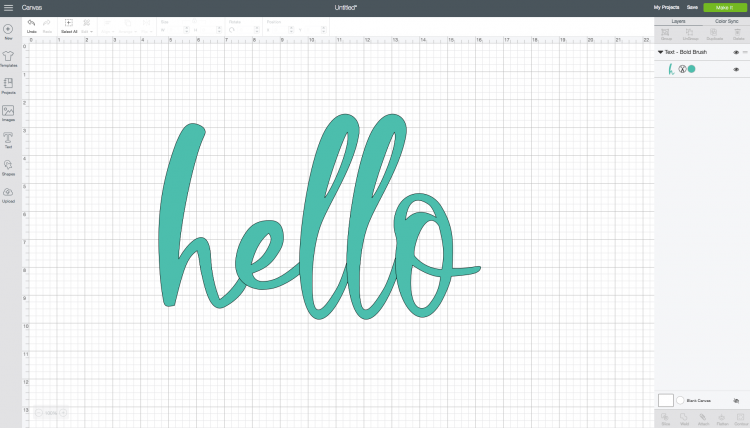
They're absolutely free and super easy to use, without. They are great for any design project, no matter. ✓ click to find the best 173 free fonts in the alphabet style. Actually, the least thing you think of when you want to communicate with your loved ones is a paper letter. The style of this font are casual, lovely, contemporary, modern, elegant. Craft a personalized note with one of these amazing handwritten fonts below. This cool fonts generator remains unique due to the fact that it has been written using unicode basically has a large set of symbols which resemble the latin alphabet. In the age of social media and smartphones, probably, there are people, who have never heard about handwritten letters.
This means that balance and symmetry may not at all have anything to do with its overall effect.
I noticed people were trying to find a generator like fancy letters, but were ending up on if you're wondering how one produces cool text fonts like you see above, it's fairly simple (but maybe not what you'd expect). 3.10 and 5.75 this set includes 26 upper case letters for a total of 54 designs all sizes. Handwriting fonts bring a new artistry to fonts, as they are actually based on people's individual handwriting. Browse and download handwriting fonts and generate images from custom text with handwriting fonts. 60 free calligraphy fonts and lettering fonts download. Free handwriting worksheets (alphabet handwriting worksheets, handwriting paper and cursive handwriting worksheets) for preschool and kindergarten. A fancy cool ✅ font generator that helps create stylish text font styles with beautiful symbols and fancy characters for social it converts a normal text to different free cool fonts styles, such as tattoo fonts, calligraphy fonts, web script fonts, cursive fonts. Here are 50 free handwriting fonts you can incorporate into your designs to give them a unique, handwritten feel (without the time and hassle every one of the free handwriting fonts on this list is available for download at zero cost to you—so if you want to lend a unique, handwritten feel to your. Archive of freely downloadable fonts. This means that balance and symmetry may not at all have anything to do with its overall effect. Download the best free handwritten fonts, that are hand picked collections by our editorial experts and can be used on mac, pc quillbacks script font is a modern handwriting calligraphy font. ✓ click to find the best 173 free fonts in the alphabet style. If you want to make a personal blog or website stand out from all the rest, you can incorporate a fun handwriting font into the headers:
A fancy cool ✅ font generator that helps create stylish text font styles with beautiful symbols and fancy characters for social it converts a normal text to different free cool fonts styles, such as tattoo fonts, calligraphy fonts, web script fonts, cursive fonts. The best selection of handwriting fonts for windows and macintosh. Browse and download handwriting fonts and generate images from custom text with handwriting fonts. Handwriting letters and fonts symbols & emoji. This means that balance and symmetry may not at all have anything to do with its overall effect.
Archive of freely downloadable fonts. Writing fonts include both printing and cursive styles and is less artistic than formal calligraphy. Actually, the least thing you think of when you want to communicate with your loved ones is a paper letter. This means that balance and symmetry may not at all have anything to do with its overall effect. This cool fonts generator remains unique due to the fact that it has been written using unicode basically has a large set of symbols which resemble the latin alphabet. Free handwriting worksheets (alphabet handwriting worksheets, handwriting paper and cursive handwriting worksheets) for preschool and kindergarten. Supported for devices which have flipfont™ (samsung galaxy s3, s4, s5, note, note ⅱ, note ⅲ) to change fonts. Handwriting fonts are written with a pen, pencil, or marker. Every font is free to download! In the age of social media and smartphones, probably, there are people, who have never heard about handwritten letters. Finding the right calligraphy font for your needs this collection of 60 free calligraphy fonts has all your bases covered, from romantic and feminine a quirky and fun font that features the flow of real handwriting. Download free cyrillic fonts for commercial and personal use. Craft a personalized note with one of these amazing handwritten fonts below.
These worksheets are for coloring, tracing, and writing uppercase and lowercase letters. Handwriting letters and fonts symbols & emoji. Download free cyrillic fonts for commercial and personal use. This means that balance and symmetry may not at all have anything to do with its overall effect. 60 free calligraphy fonts and lettering fonts download.
Download the best free handwritten fonts, that are hand picked collections by our editorial experts and can be used on mac, pc quillbacks script font is a modern handwriting calligraphy font. 60 free calligraphy fonts and lettering fonts download. Archive of freely downloadable fonts. Writing fonts include both printing and cursive styles and is less artistic than formal calligraphy. Calligraphy fonts alphabet tattoo lettering fonts hand lettering alphabet font art doodle lettering creative lettering graffiti letras cool tattoo fonts alphabet letter fonts schrift design typographie inspiration typographie logo handwriting fonts. This is a generator for text fonts of the cool variety. Instead of sticking to the alphabet itself. ✓ click to find the best 173 free fonts in the alphabet style.
Handwriting fonts are written with a pen, pencil, or marker.
✓ click to find the best 173 free fonts in the alphabet style. If you want to make a personal blog or website stand out from all the rest, you can incorporate a fun handwriting font into the headers: We have 3,764 free handwritten\ fonts to offer for direct downloading · 1001 fonts is your favorite site for free fonts since 2001. Handwriting letters and fonts symbols & emoji. Looking for beautiful font styles to write status or send messages on social networks like instagram, facebook, twitter this tool has a large selection of cool fancy fonts that are sure to impress your friends. 3.10 and 5.75 this set includes 26 upper case letters for a total of 54 designs all sizes. How is cool font generator different (unicode)? Here are 50 free handwriting fonts you can incorporate into your designs to give them a unique, handwritten feel (without the time and hassle every one of the free handwriting fonts on this list is available for download at zero cost to you—so if you want to lend a unique, handwritten feel to your. Handwriting fonts bring a new artistry to fonts, as they are actually based on people's individual handwriting. Writing fonts include both printing and cursive styles and is less artistic than formal calligraphy. Free handwriting worksheets (alphabet handwriting worksheets, handwriting paper and cursive handwriting worksheets) for preschool and kindergarten. Cool handwriting allows all users to change the system font of your phone or tablet. Handwriting fonts are written with a pen, pencil, or marker.